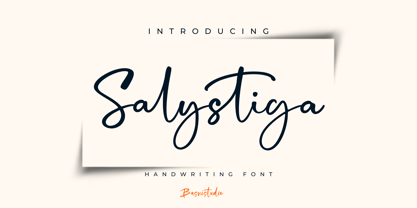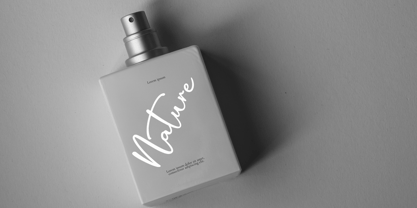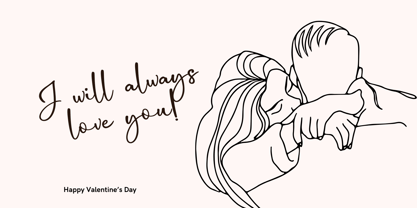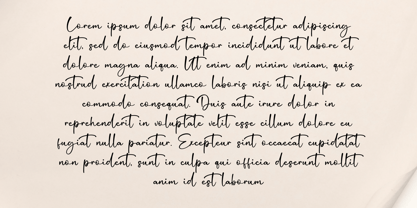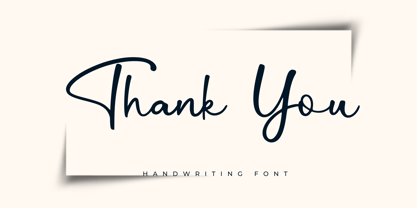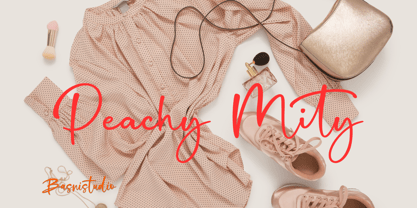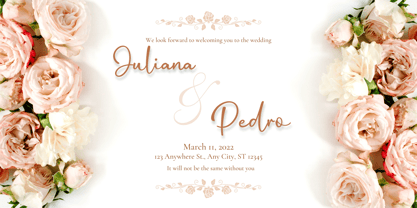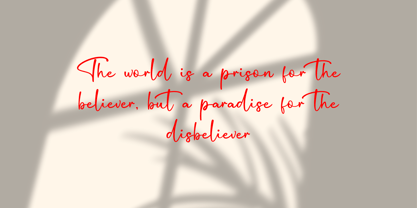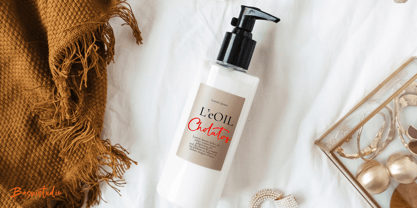
Salystiga
by Basnistudio
The Salystiga Font Family was designed by Bery Arisandi and published by Basnistudio. Salystiga contains 1 styles.
Introducing Salystiga Handwriting Fontt
Salystiga Handwriting Font, made by Naturaly Handwriting & Authentic Style.
This Font is perfect for an magazine, clothes, quotes, and so much more. This font is PUA encoded, which means you can access all of the glyphs.